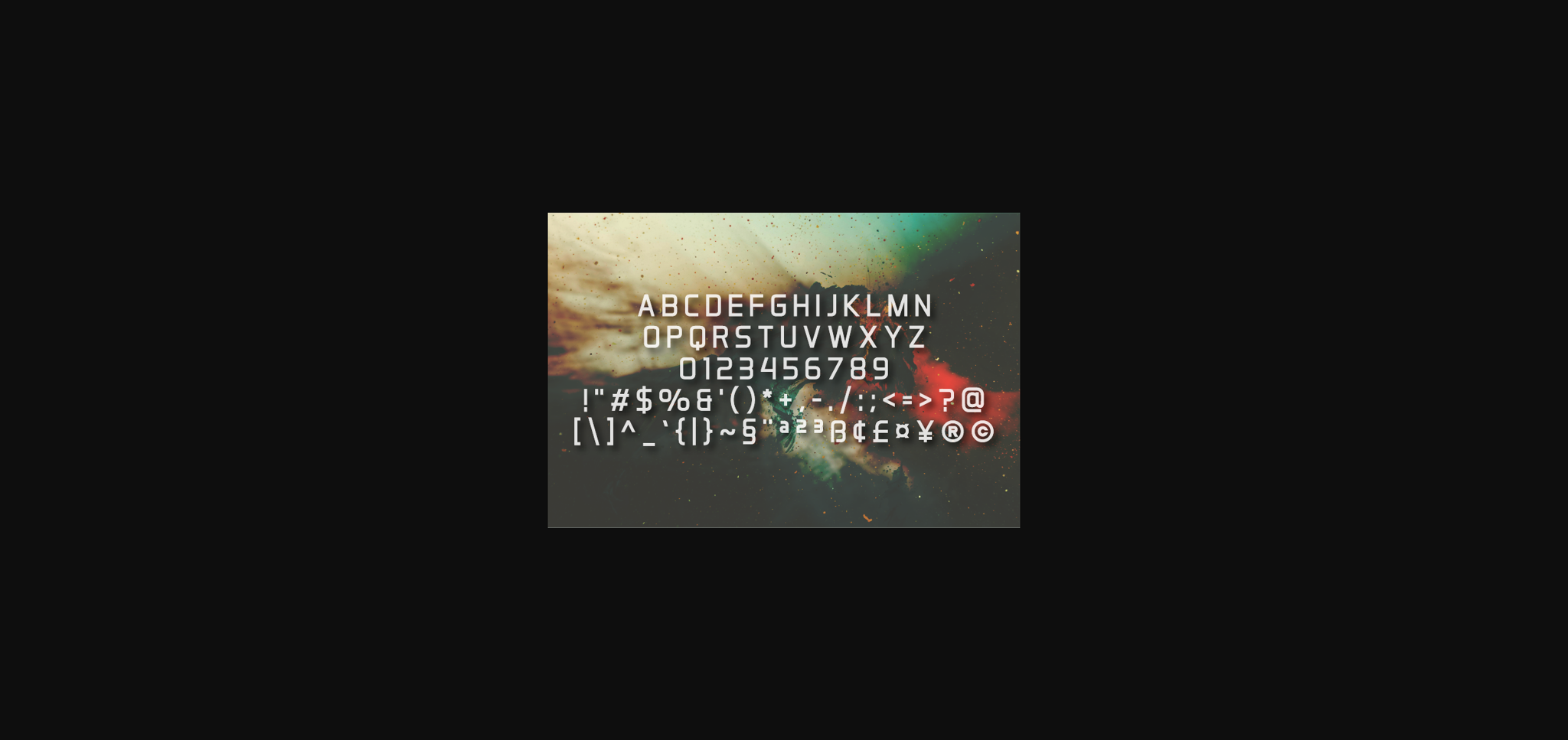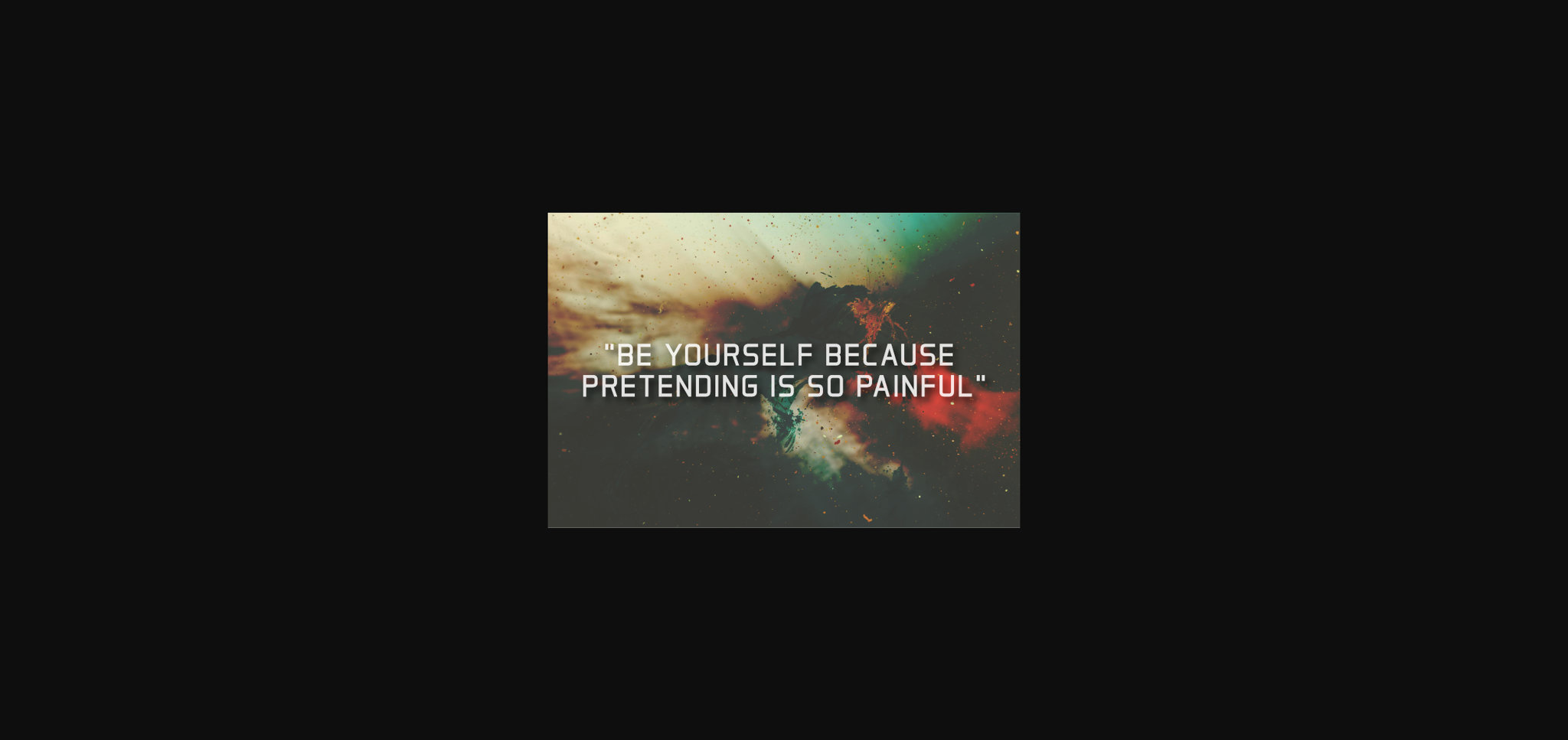
HomeSans Serif FontsGreenode Font Sans Serif Fonts Greenode Font FacebookXPinterestWhatsApp 1 of 5 ... Greenode Font Poster 2... Greenode Font Poster 3... Greenode Font Poster 4... Greenode Font Poster 5... About Greenode Font Greenode is a minimal, yet elegant sans serif font. Suitable to a wide variety of designs due to its neat and simple style, Greenode has the potential to become your favorite go-to font, no matter the occasion! DOWNLOAD NOW People also explored Alika Caitlin Font Digizen Font Mother Cards Font Magnetta Font Smailing Font Jelaga Font Coffee Christmas Font Arlistan Font Delman Font 470 0 TagsGreenode Font Previous articleNagara FontNext articleProgenzo Font LEAVE A REPLY Cancel reply Comment: Please enter your comment! Name:* Please enter your name here Email:* You have entered an incorrect email address! Please enter your email address here Website: Save my name, email, and website in this browser for the next time I comment. Personal Use Free Ciggs Personal Use Free Read more about this font Krase Personal Use Free Read more about this font Hallo Betty Personal Use Free Read more about this font Maharany Personal Use Free Read more about this font BLOG Free Fonts Risk: Why Free Fonts Can Be Dangerous for Designers Free Fonts Risk: Why Free Fonts Can Be Dangerous for Designers Using free fonts is a common practice in web and graphic design. However, the... Exploring Font Trends Using Fonts in Digital Marketing: Tips to Strengthen Your Brand Identity The 10 Best Handwriting Fonts to Add Personality to Your Designs